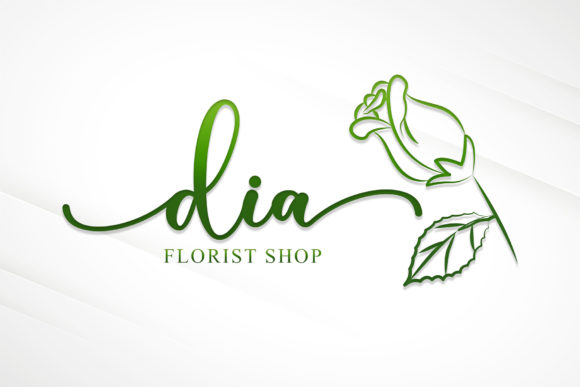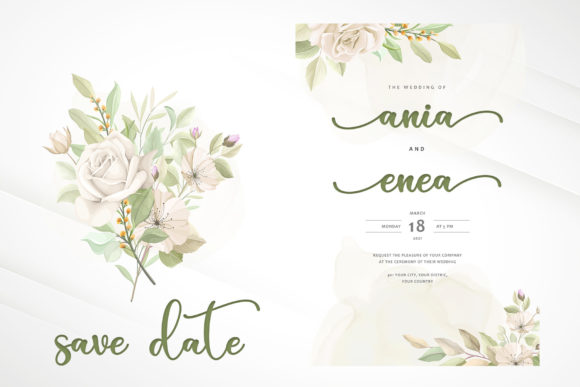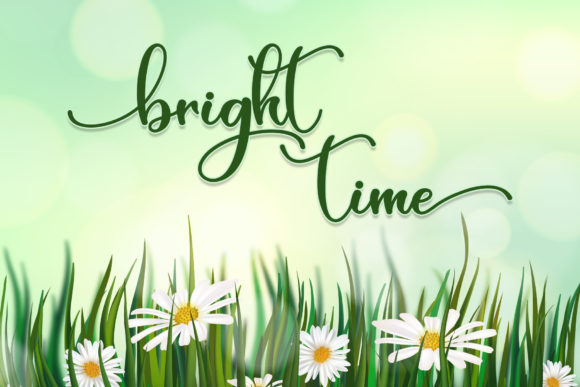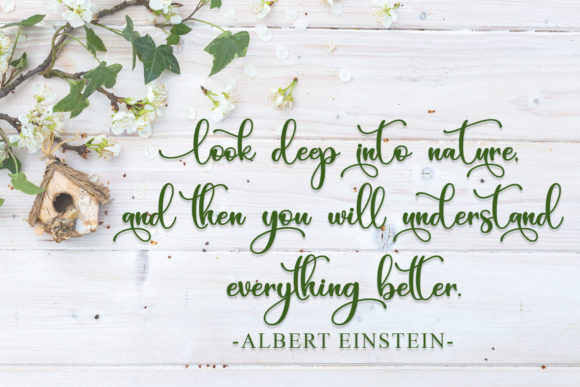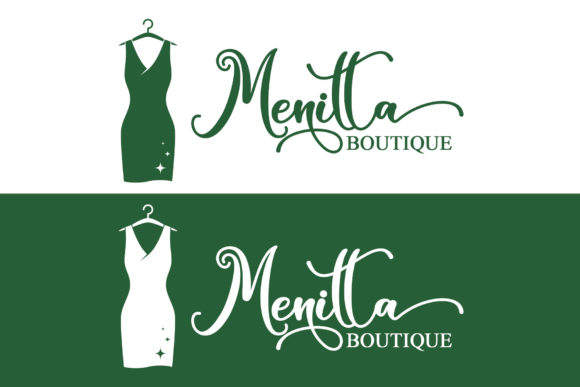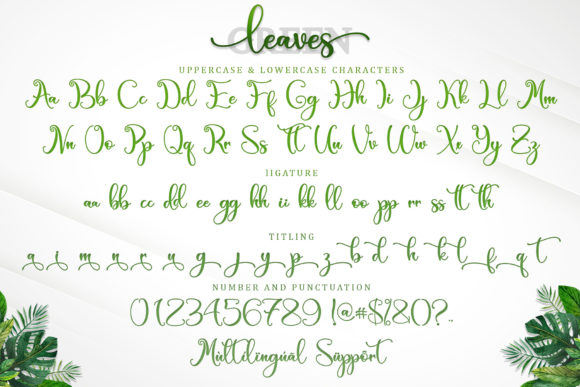
Introduction to Green Leaves Font
Green Leaves is a romantic and sweet calligraphy typeface with characters that dance along the baseline.
Key Features of Green Leaves Font
Why Choose Green Leaves Font?